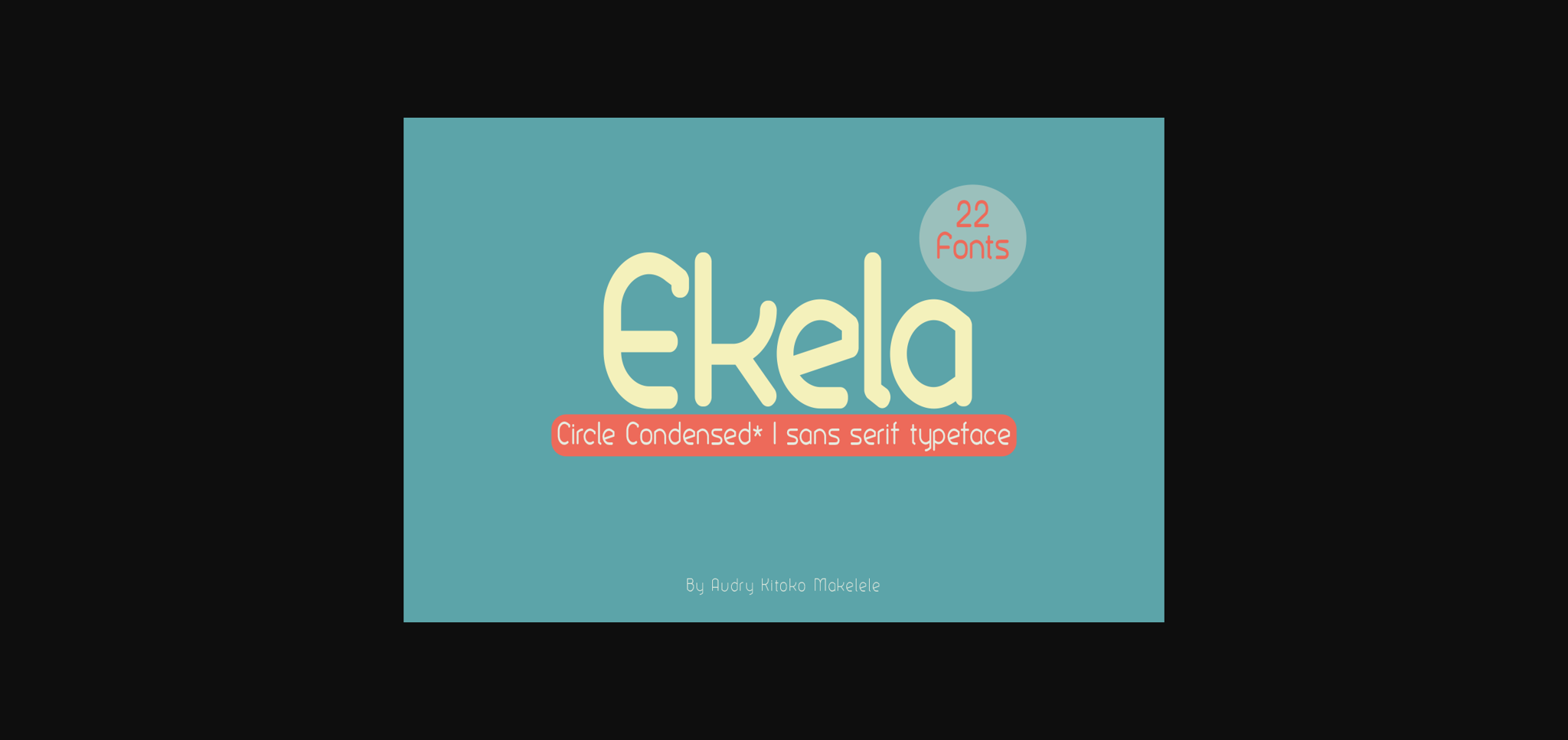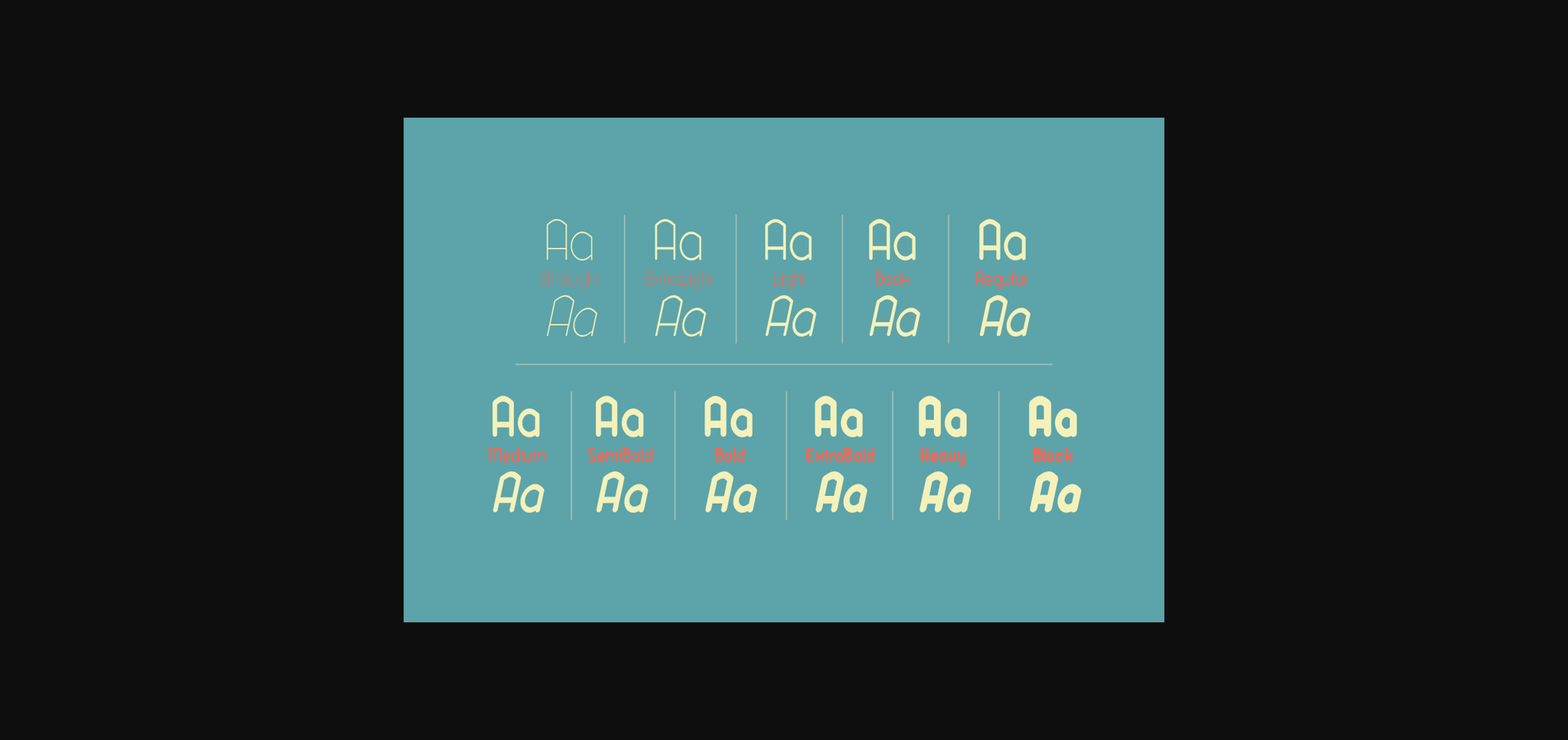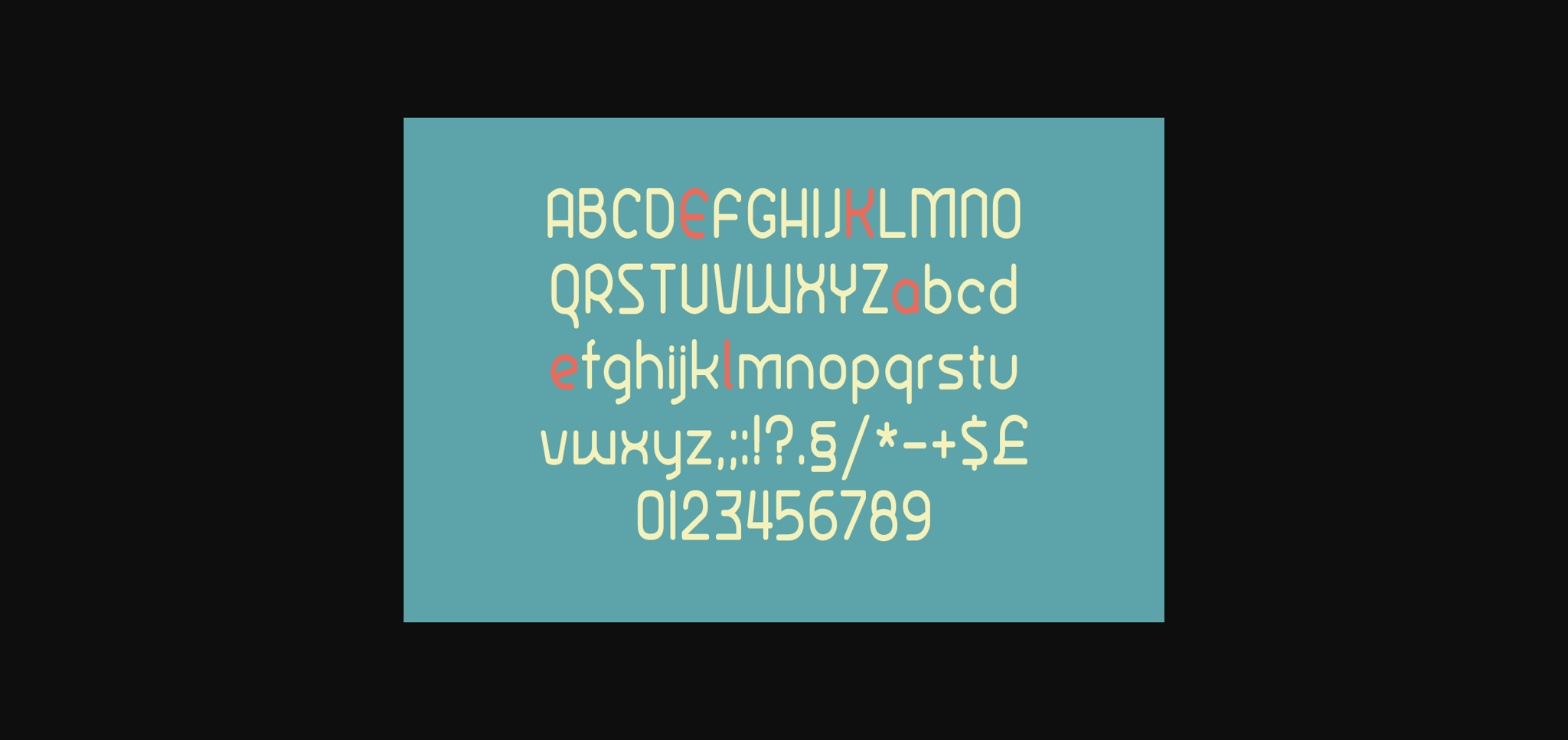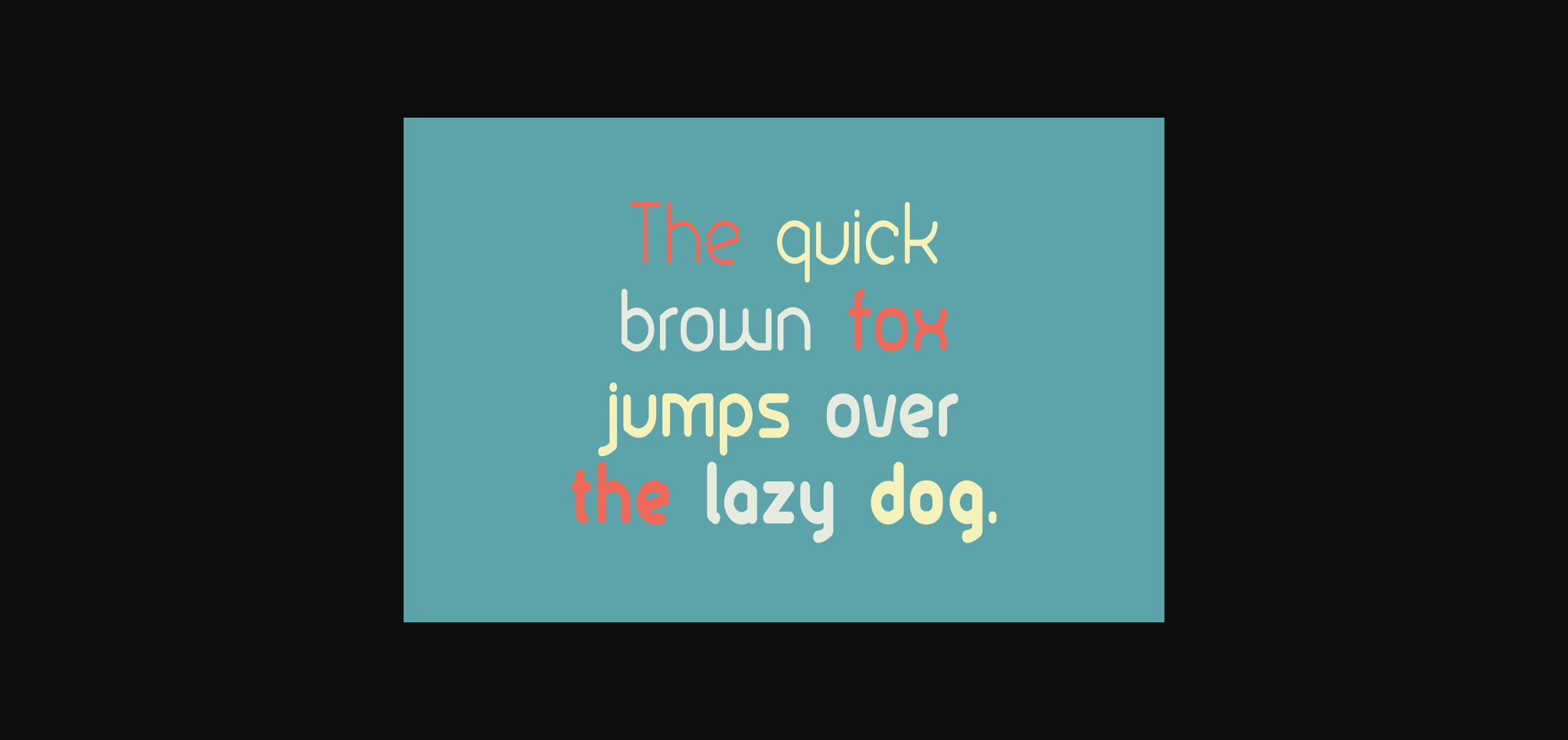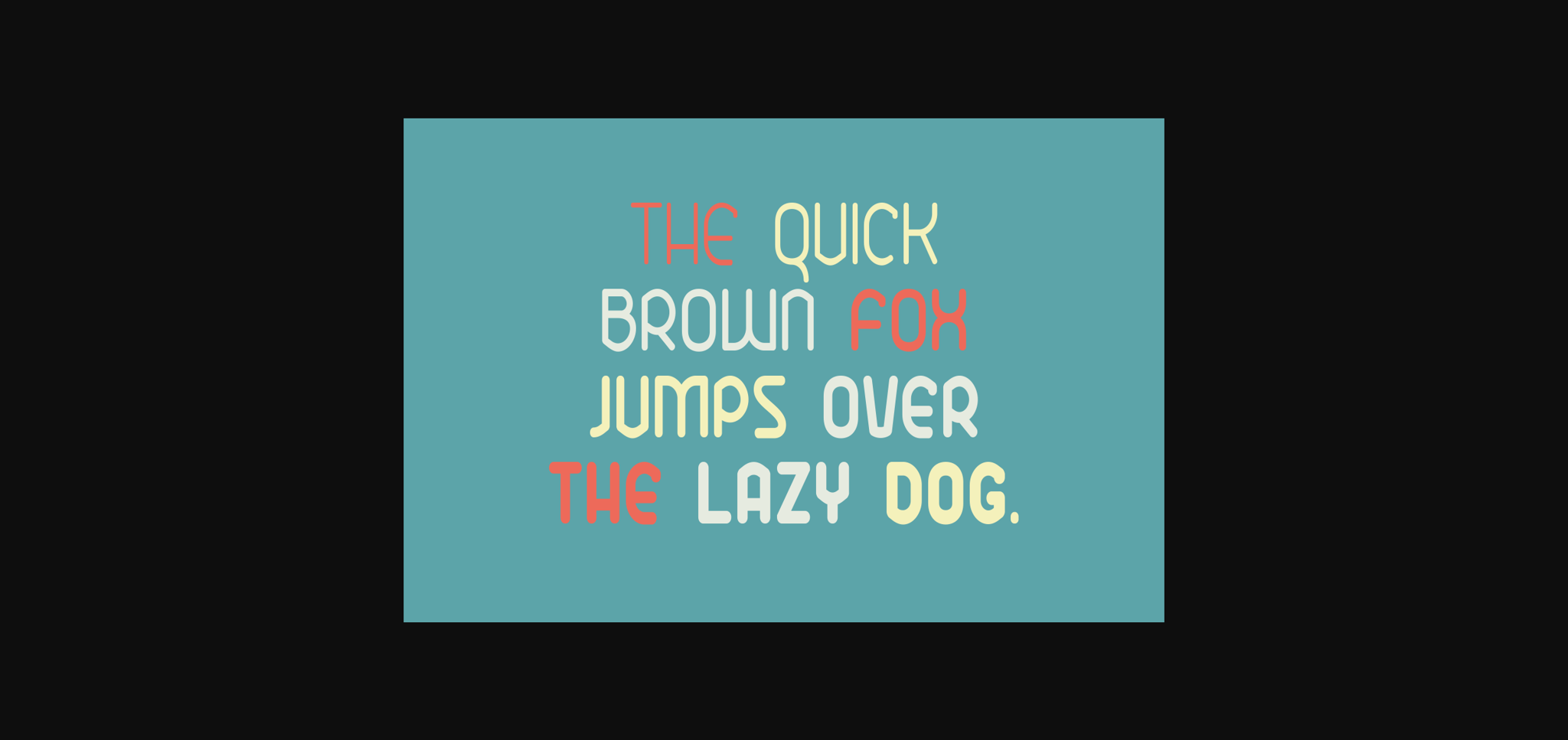
HomeSans Serif FontsEkela Font Sans Serif Fonts Ekela Font FacebookXPinterestWhatsApp 1 of 7 ... Ekela Font Poster 2... Ekela Font Poster 3... Ekela Font Poster 4... Ekela Font Poster 5... Ekela Font Poster 6... Ekela Font Poster 7... About Ekela Font Ekela is a minimal and neat sans serif font. It can easily be matched to an incredibly large set of projects, so add it to your creative ideas and notice how it makes them stand out! DOWNLOAD NOW People also explored Zaxelton Signature Written Font Sweet Home Font Bontteny Font Glamorous Expression Font Christmas Font Willany Font Keith Font Camping Plan Font 298 0 TagsEkelaEkela Font Previous articleNew Divide FontNext articleEkela Font LEAVE A REPLY Cancel reply Comment: Please enter your comment! Name:* Please enter your name here Email:* You have entered an incorrect email address! Please enter your email address here Website: Save my name, email, and website in this browser for the next time I comment. Personal Use Free Anjhay Personal Use Free Read more about this font Black Friday Personal Use Free Read more about this font Shawaki Personal Use Free Read more about this font Fifty Five Personal Use Free Read more about this font BLOG Free Fonts Risk: Why Free Fonts Can Be Dangerous for Designers Free Fonts Risk: Why Free Fonts Can Be Dangerous for Designers Using free fonts is a common practice in web and graphic design. However, the... Where to Buy American Fonts Online in 2024 Modern Sans-Serif Fonts That Brands Love in 2025 Transform Your Website: Elevate Your Typography with 7 Best Web Font Generators